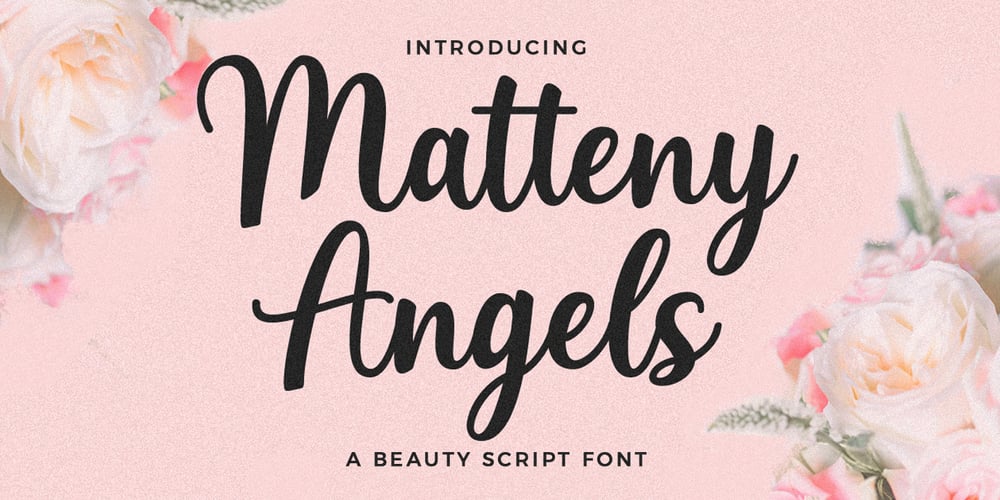
Matteny Angels
Matteny Angels font
Matteny Angels Font Family was designed by Mulia Yanto and published by Multype Studio. Matteny Angels contains 1 styles and family package options. Matteny Angels is a beautiful and flowing script font. It looks stunning on wedding invitations, branding, thank you cards, watermark, fashion, quotes, greeting cards, logos, business cards and every other design which needs a handwritten touch.This font is PUA encoded.